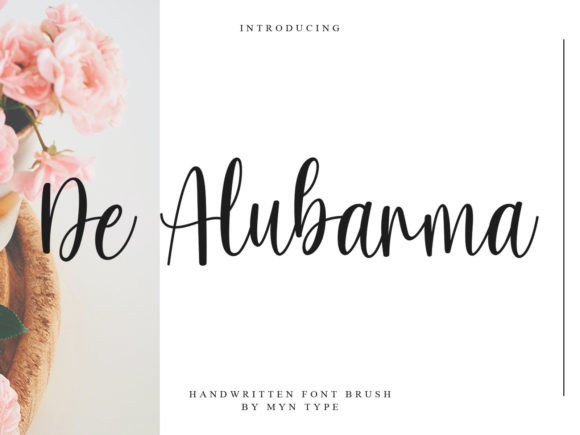
**De Alubarma: The Script Font Collection That Will Ignite Your Creativity**
In a world of endless fonts, it's easy to get lost in a sea of sameness. But not with De Alubarma, the captivating script font collection that will awaken your design aspirations and elevate your projects to new heights.
With its enchanting flow and mesmerizing curves, De Alubarma is a masterpiece crafted for the discerning eye. Its natural and elegant style seamlessly blends with your creations, transforming them into captivating works of art.
**A Symphony of Characters, A Tapestry of Emotions**
Each character in the De Alubarma family is a stroke of brilliance, carefully designed to evoke a range of emotions. From the playful swirls of the lowercase letters to the graceful ascenders and descenders of the capitals, De Alubarma possesses a charm that is both captivating and timeless.
**The Perfect Canvas for Your Creative Vision**
Whether you're a master calligrapher or just starting to explore the world of typography, De Alubarma has something for everyone. Its versatility knows no bounds, making it the ideal choice for a myriad of projects, including:
• **Exquisite Invitations:** Craft invitations that exude elegance and charm. De Alubarma's flowing lines will transform your invitations into cherished keepsakes.
• **Mesmerizing Logos:** Create logos that leave an unforgettable impression. De Alubarma's distinctive style will make your brand stand out from the crowd.
• **Captivating Social Media Posts:** Engage your followers with visually stunning posts. De Alubarma's captivating design will make your content shine on any platform.
• **Enchanting Artwork:** Express your creativity through breathtaking artwork. De Alubarma's natural elegance will add a touch of magic to your artistic endeavors.